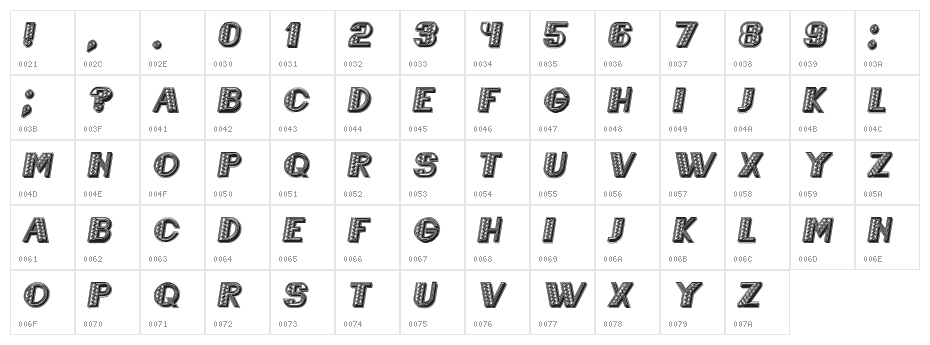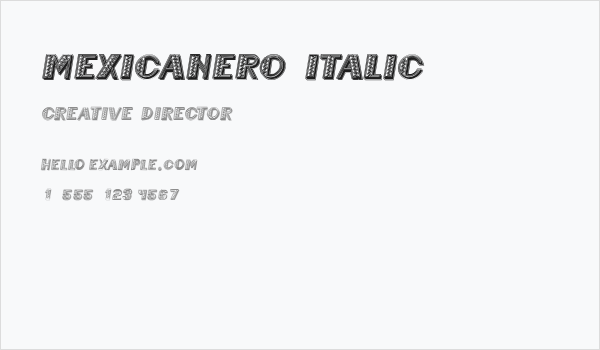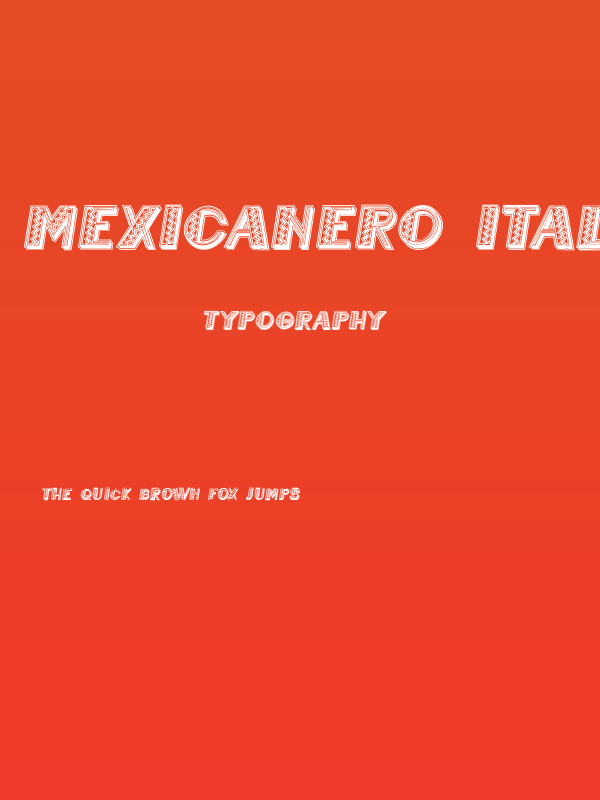
Mexicanero Italic Font
Mexicanero Italic Description
This font features a bold and dynamic design with a distinct italic slant, giving it a sense of movement and energy. The characters are outlined with a thick border and filled with intricate patterns, creating a textured and layered appearance. The uppercase letters are prominent and commanding, while the numbers and special characters maintain the same bold style. The overall look is reminiscent of traditional Mexican art, making it highly decorative and visually striking.
| Proposed Projects | Ideal for projects that require a bold and decorative touch, such as posters, event invitations, branding for cultural events, or any design needing a vibrant and artistic flair. |